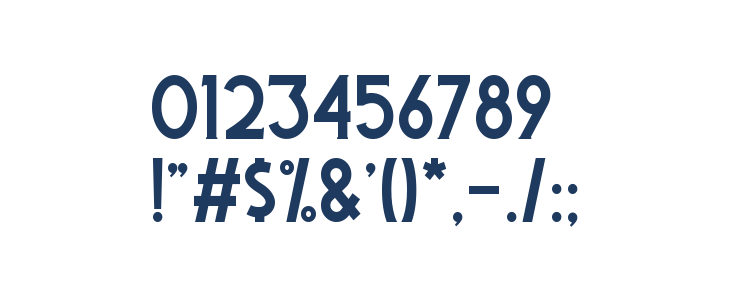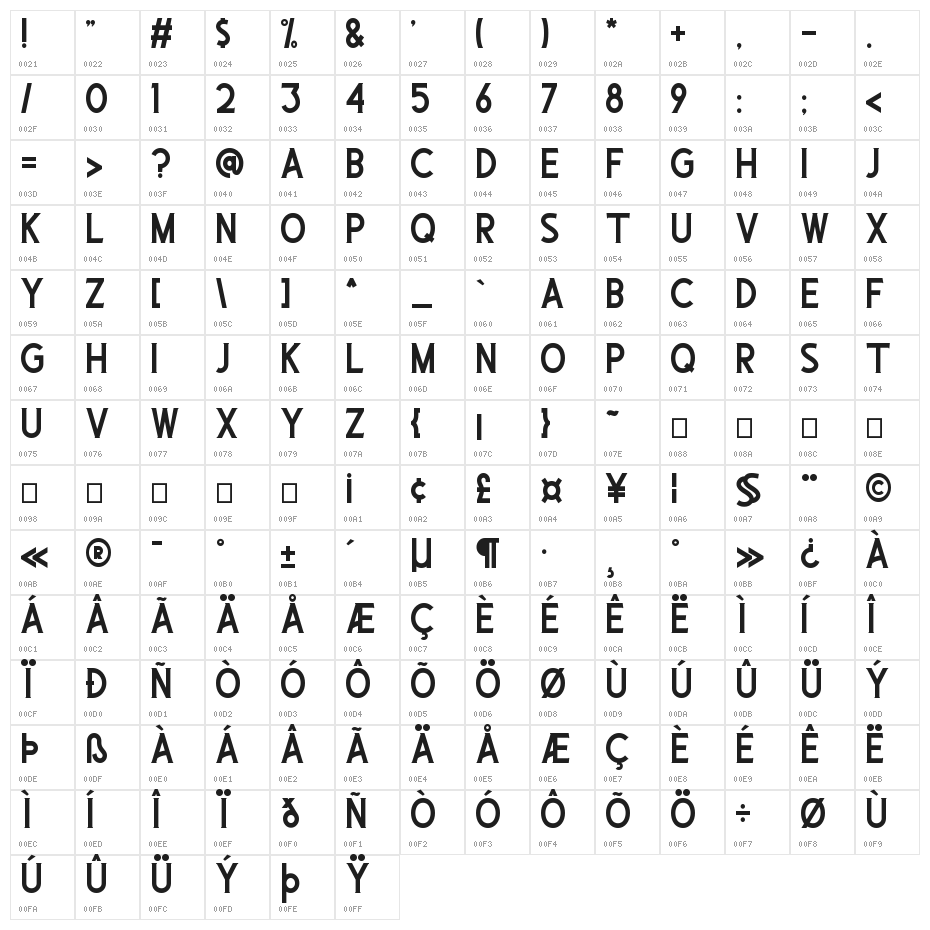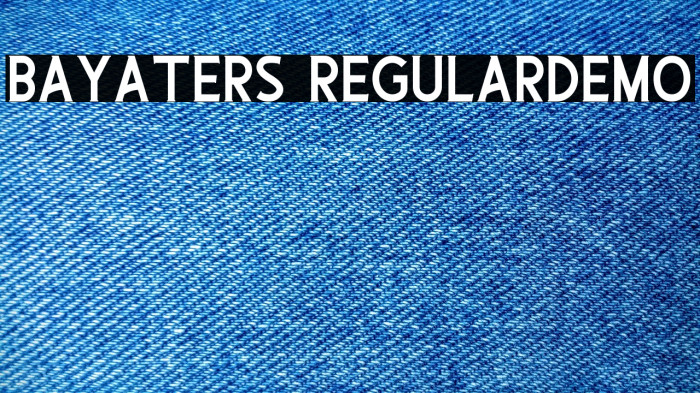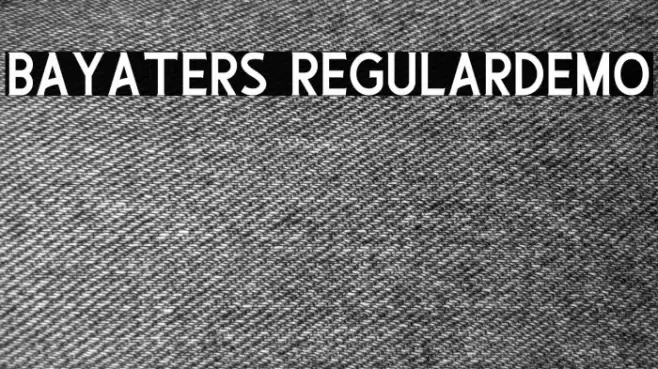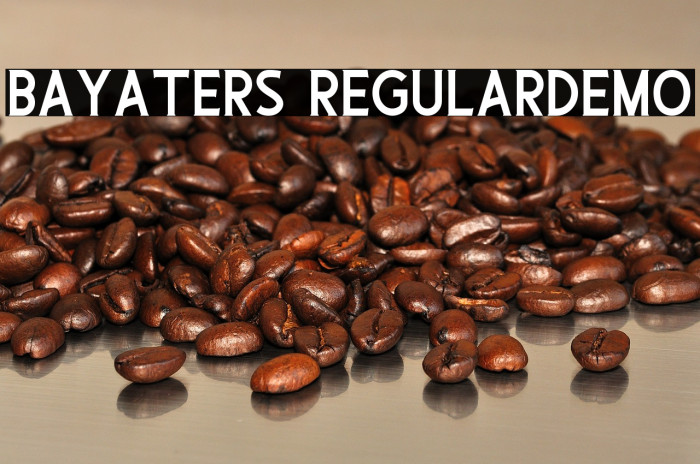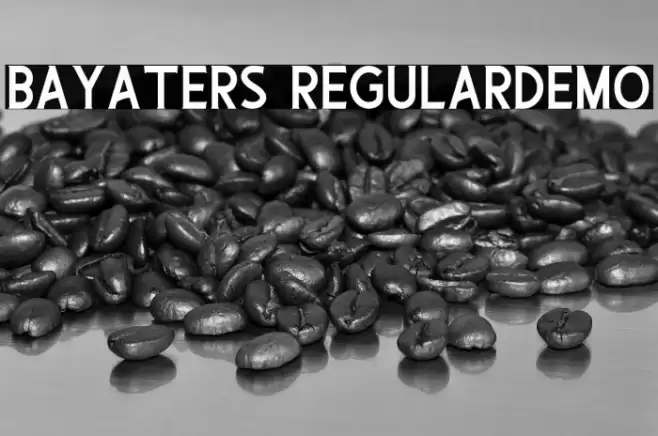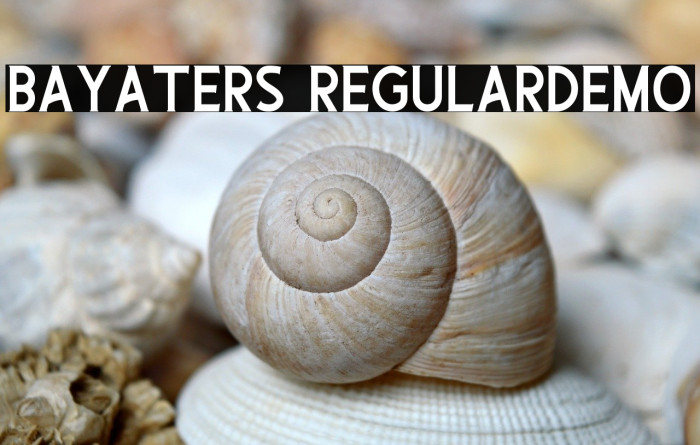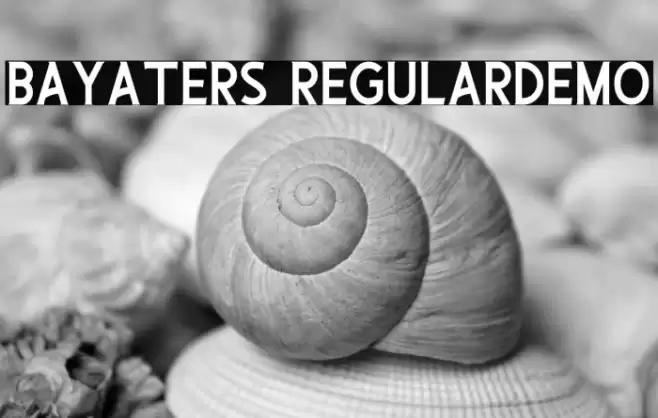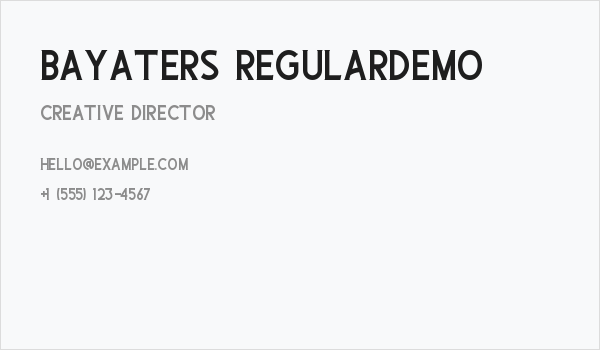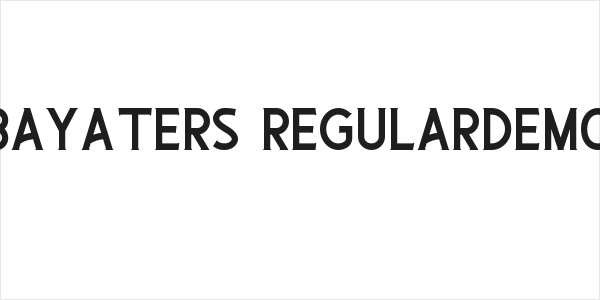
Bayaters RegularDemo Font
Bayaters RegularDemo Description
This font features a bold and modern sans-serif style with clean lines and a strong presence. The uppercase and lowercase letters are well-proportioned, offering a harmonious balance between readability and aesthetic appeal. The numerals are distinct and easy to read, making them suitable for various applications. Special characters are included, maintaining the font's cohesive look. The overall design is versatile, making it ideal for both digital and print media.